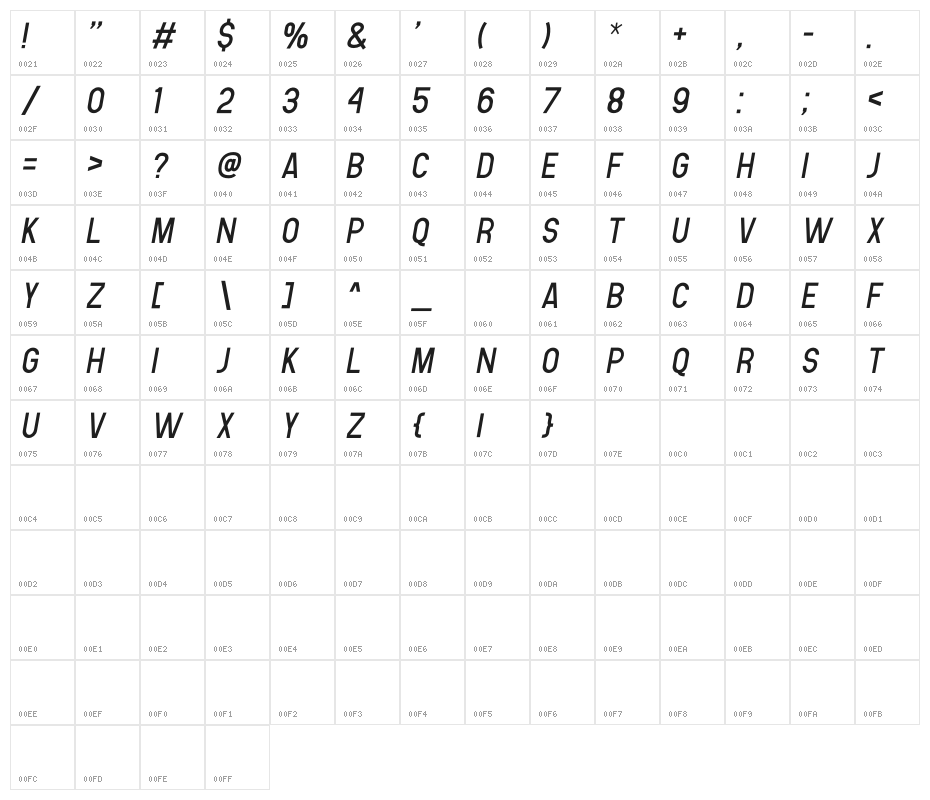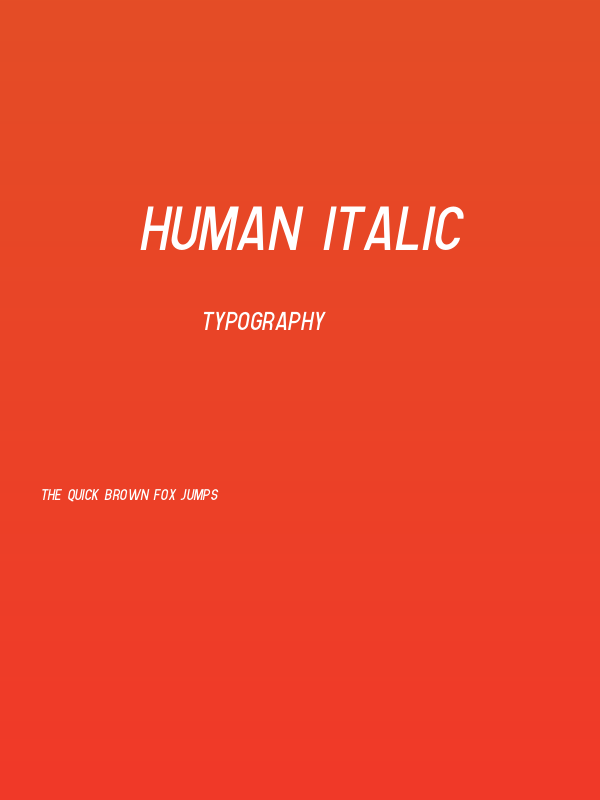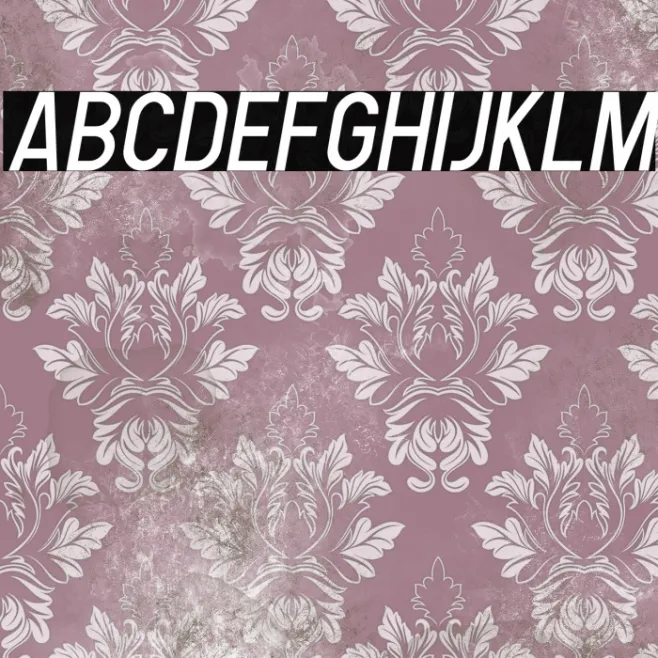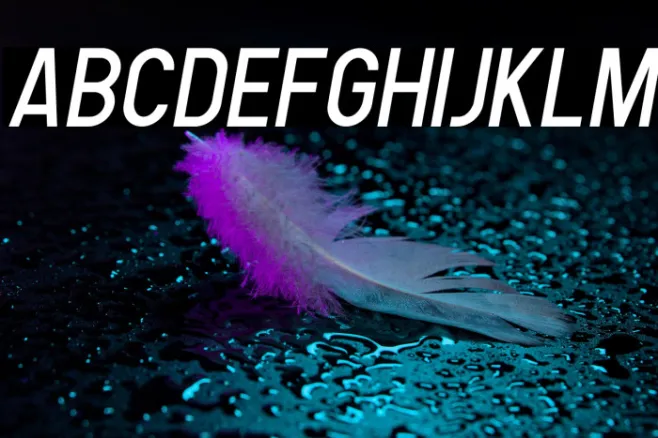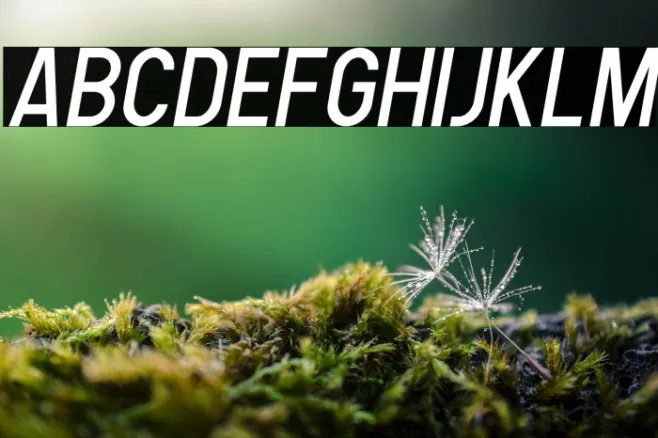
Human Italic Font
Human Italic Description
This font features a sleek, modern design with a distinct italic slant, giving it a dynamic and forward-moving appearance. The characters are clean and sans-serif, emphasizing simplicity and readability. The uniform stroke width across letters provides a consistent look, while the slight curvature in certain characters adds a touch of elegance. The numerals and special characters maintain the same stylistic approach, ensuring cohesion throughout. This font is versatile, suitable for various applications where a contemporary and professional aesthetic is desired.
| Proposed Projects | Ideal for branding, advertising, and editorial design where a modern and professional look is required. |